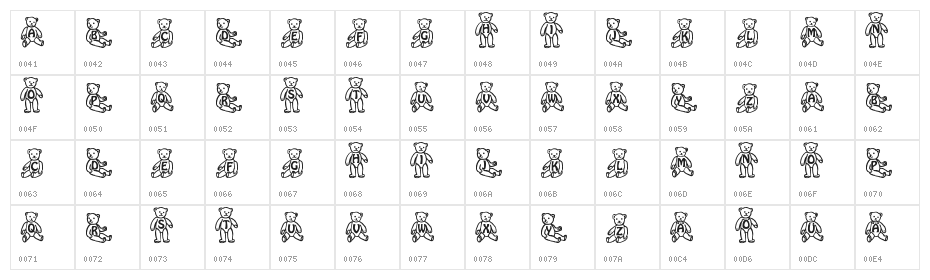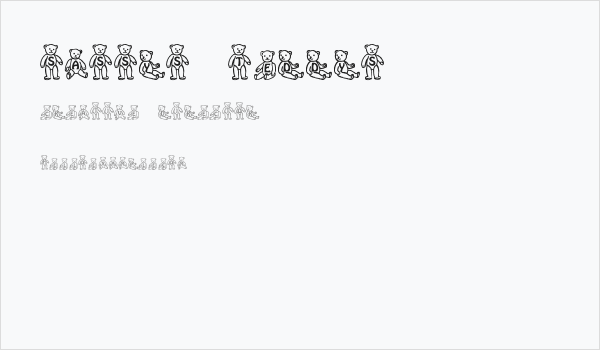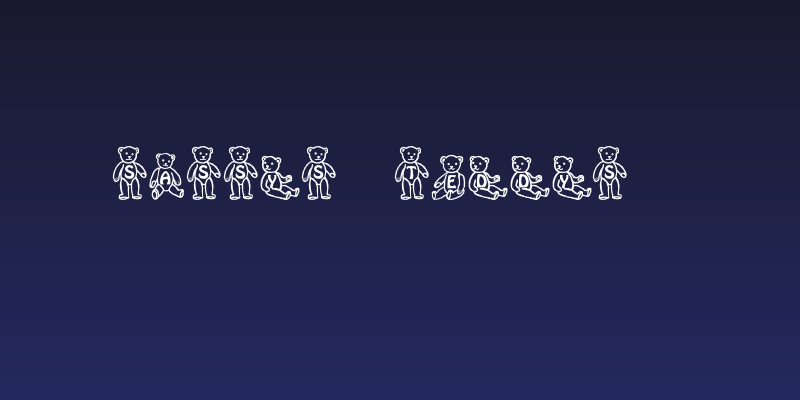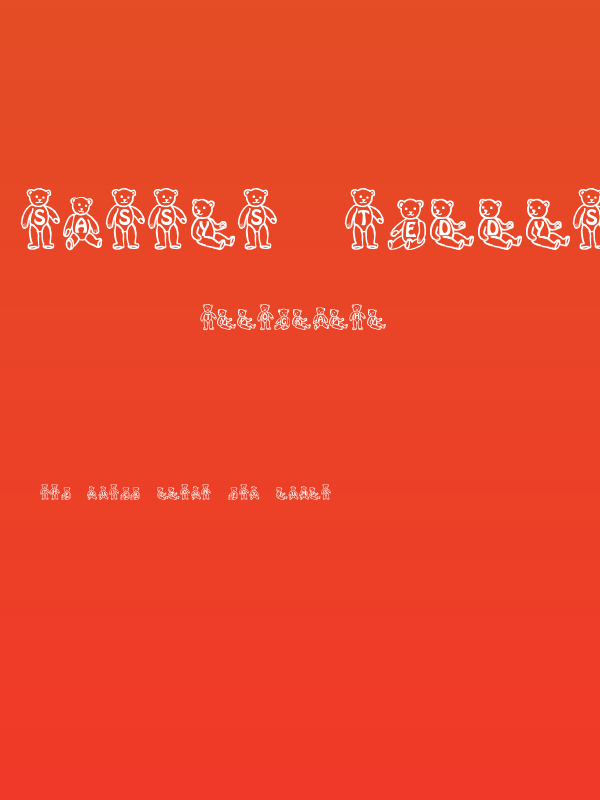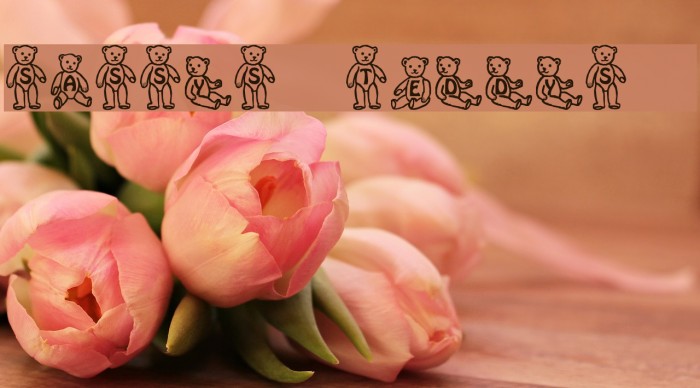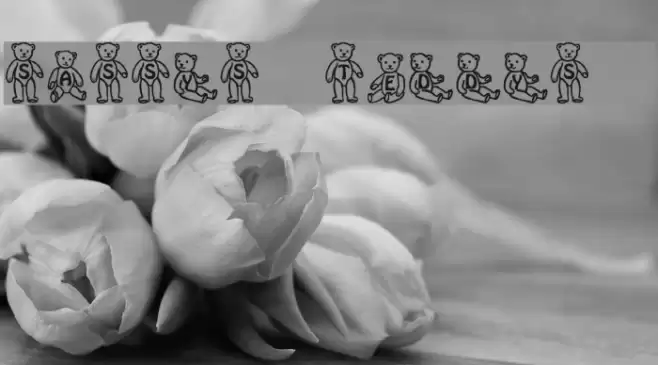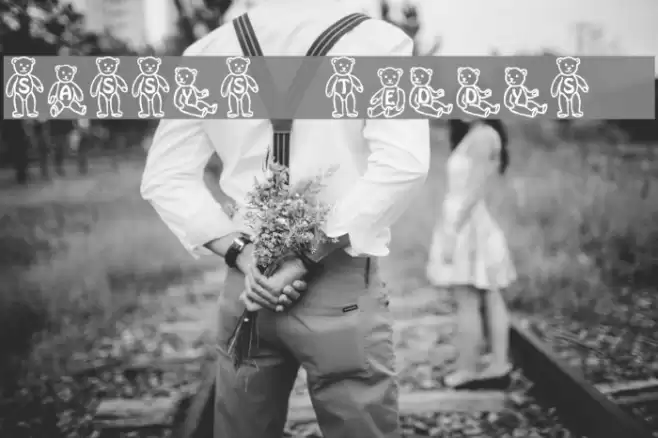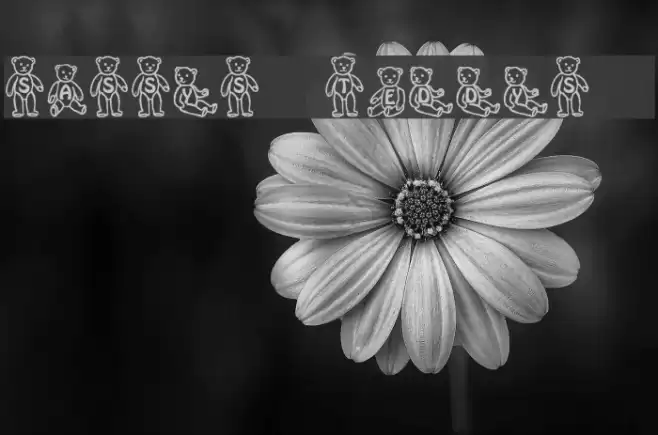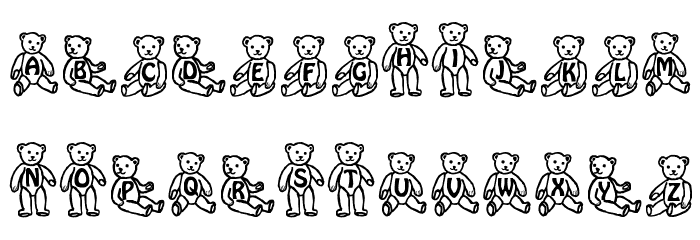
Sassys Teddys 1 Font
Sassys Teddys 1 Description
This playful and whimsical font features each letter encapsulated within a charming teddy bear illustration. The design is consistent across both uppercase and lowercase letters, with each character nestled in the center of a teddy bear's torso. The bears are depicted in a sitting position, adding a friendly and approachable feel to the font. The letters themselves are bold and clear, ensuring readability despite the decorative nature of the font. This unique style combines elements of illustration with typography, making it ideal for projects that require a touch of fun and creativity. The font's playful aesthetic is perfect for children's books, toy packaging, or any design that aims to evoke a sense of warmth and nostalgia.
| Overall Style | Playful, Whimsical |
| Use Case | Headlines, Logos, Decorative text |
| Proposed Projects | Ideal for children's books, toy packaging, nursery decor, and playful branding projects. |